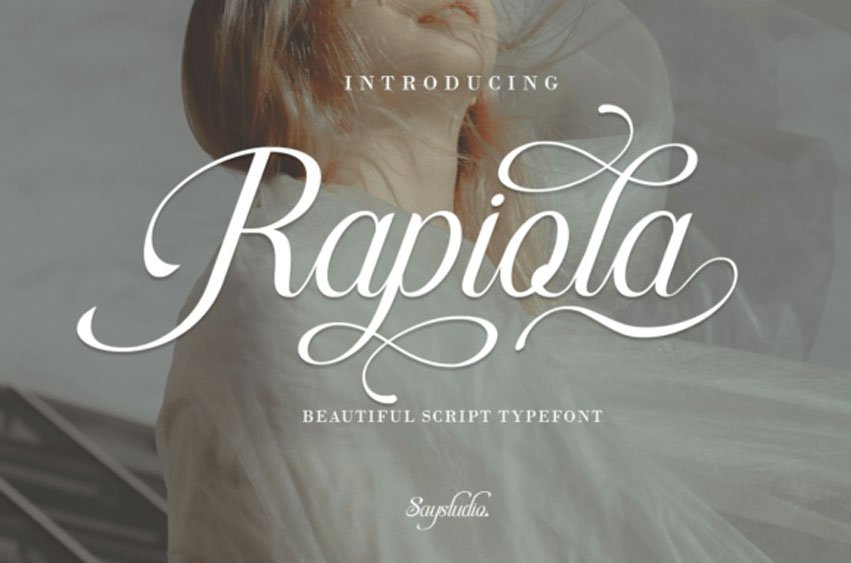
Rapiola Font is an elegant inspired calligraphy script font, perfect for that elegant touch needed for logos, wedding invitations, modern websites, greeting cards, and more, including alternates lowercase custom-branded look.
Every letter has a unique and beautiful touch, which will make your design come alive!